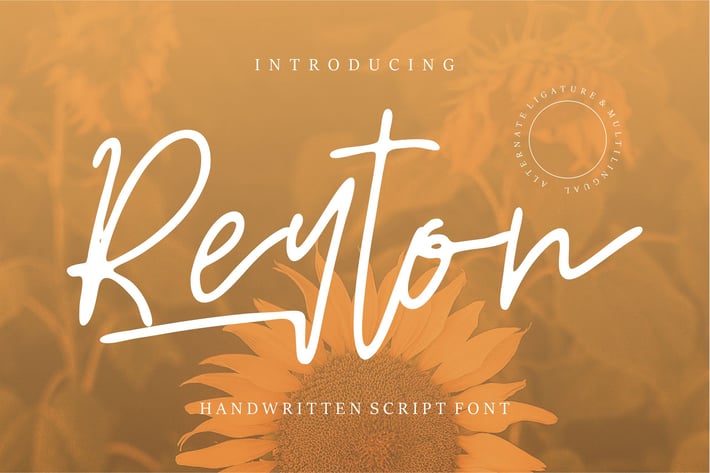
Reyton | Handwritten Script Font
Reyton | Handwritten Script Font with a calligraphy style, So beautiful on invitation like greeting cards, branding materials, business cards, quotes, posters, and more!